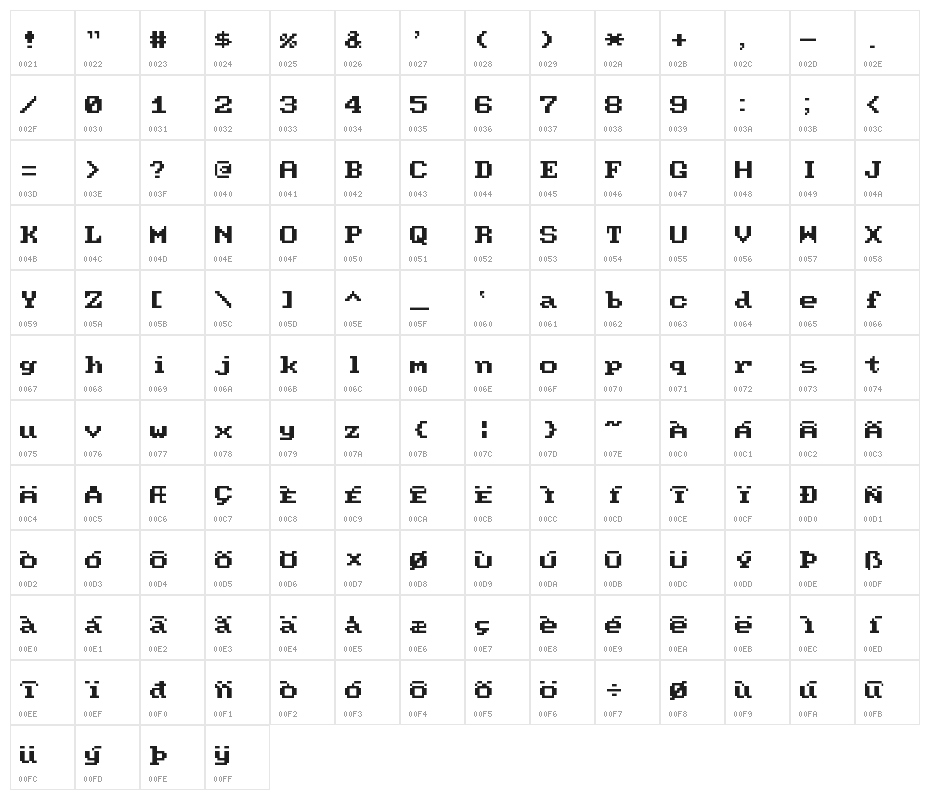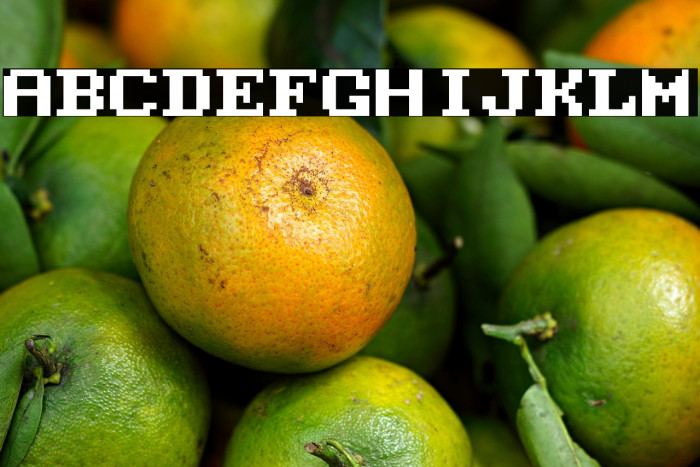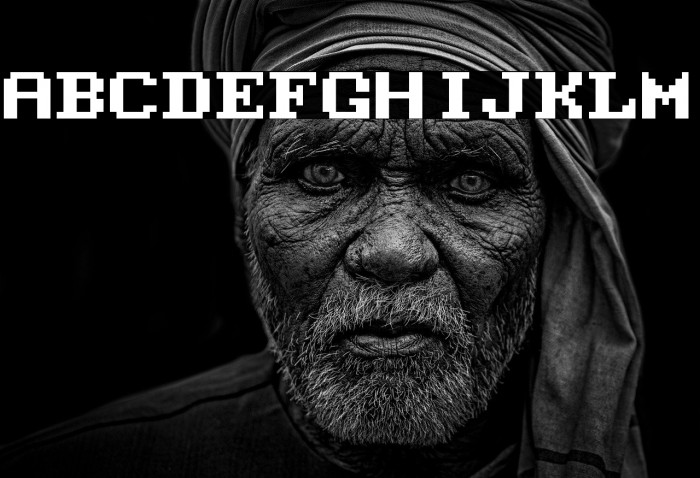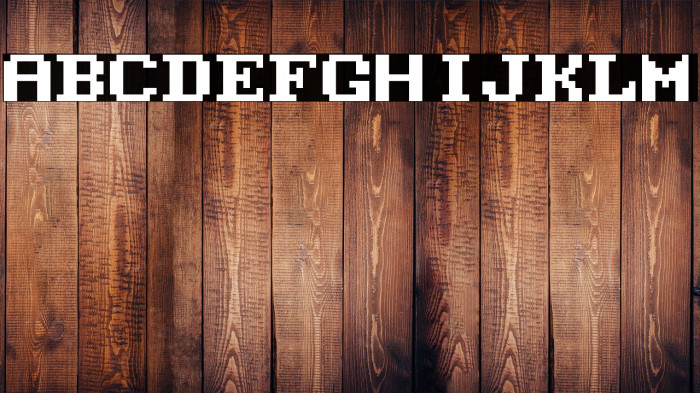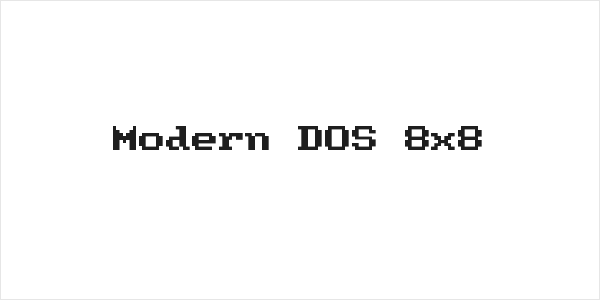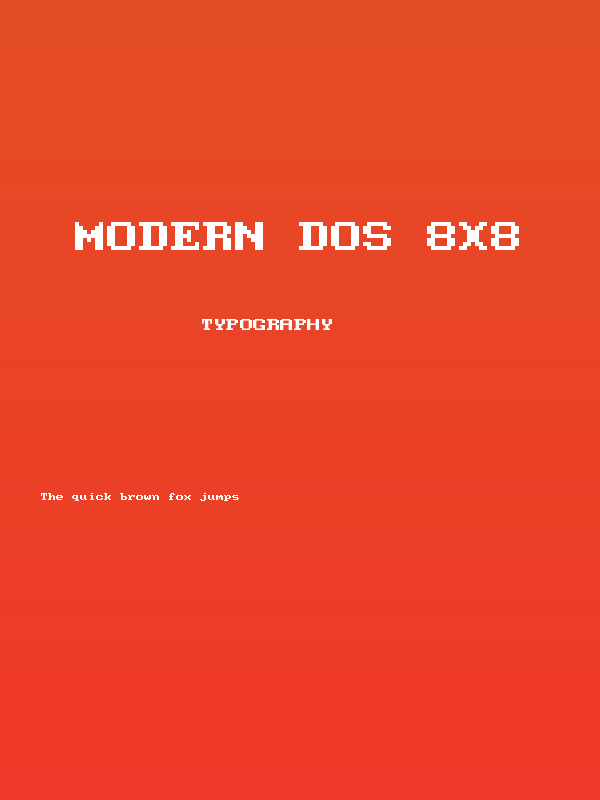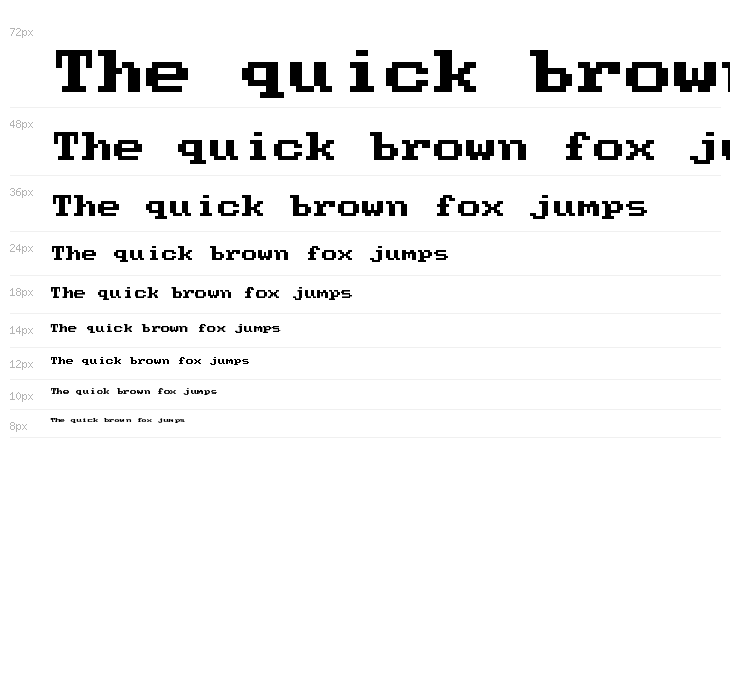
Modern DOS 8x8 Font
Modern DOS 8x8 Description
This font is a pixelated, monospaced typeface reminiscent of classic DOS and early computer systems. Each character is composed of a grid of pixels, giving it a blocky, retro appearance. The uppercase and lowercase letters maintain a consistent height, with the lowercase being slightly smaller. Numbers and special characters follow the same pixelated style, ensuring uniformity across the typeface. The design is straightforward, with no curves or embellishments, emphasizing clarity and readability in low-resolution displays. This font evokes nostalgia for early computing and video game graphics.
Proposed ProjectsIdeal for retro-themed designs, video game graphics, coding environments, and digital art projects.